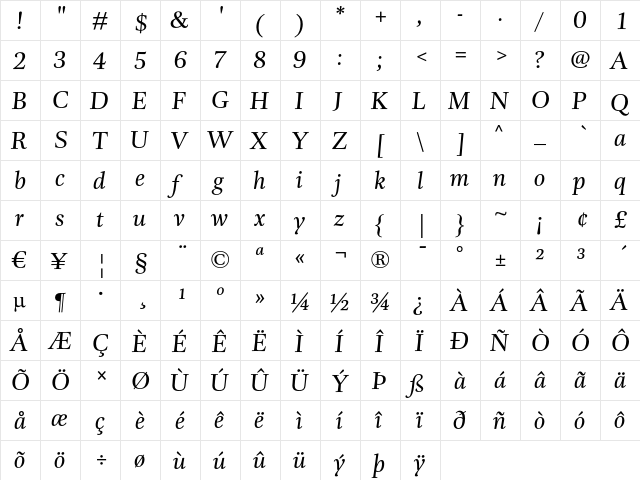
DTLUnicoT Italic
| Foundry | Dutch Type Library |
| Designer | Michael Harvey |
Design Context for DTLUnicoT Typeface
DTLUnicoT is a composed and adaptable typeface that performs quietly and consistently across a wide range of design contexts. The dynamic lean of this cut emphasises speed and emphasis in any layout.
Pro Tip: Try DTLUnicoT for annotation and caption copy alongside an upright companion — the contrast in angle creates a dynamic but ordered typographic system.